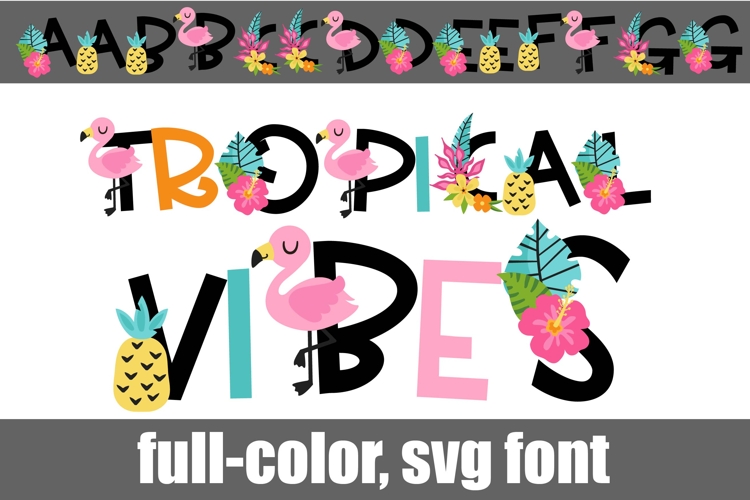
Tropical Vibes Color Font
This full-color, brightly-colored font has tropical elements on each letter. There is an alt case of additional colors of each letter that you can access through your system's character map.